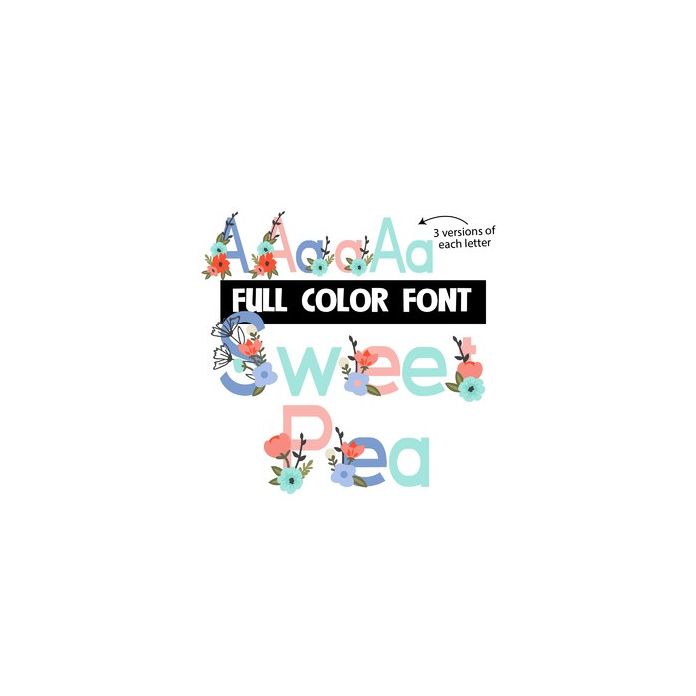
This full-color font features flowers in front of every letter and number. There is an alt upper and lowercase in pink and another alt upper and lowercase in aqua without flowers. Access them through your system's character map or the glyph map in Silhouette Studio.